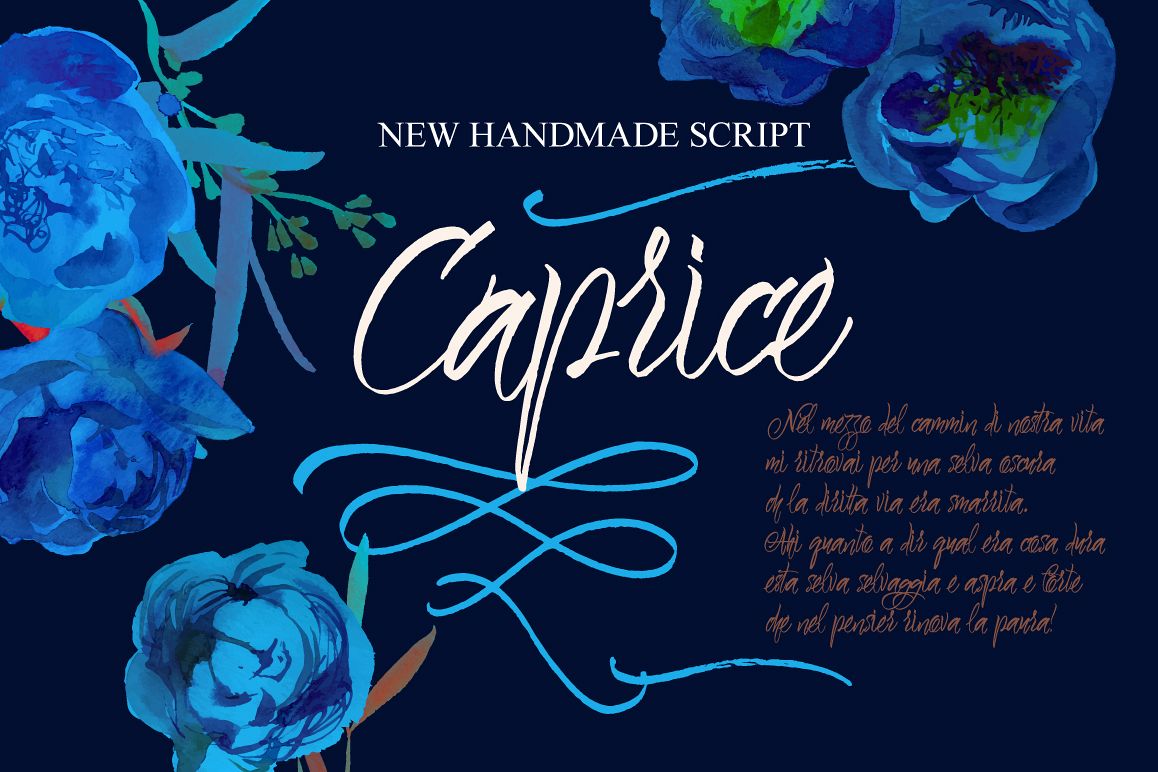
Caprice Script
About Caprice Script
Caprice is a script with perky nature. Feminine and elegant. Great for posters, book covers, etcetera
Basic Latin A-Z and a-z
Numbers
Limited Symbols
Ligatures